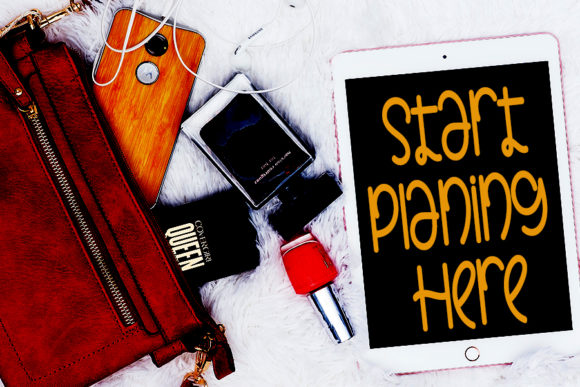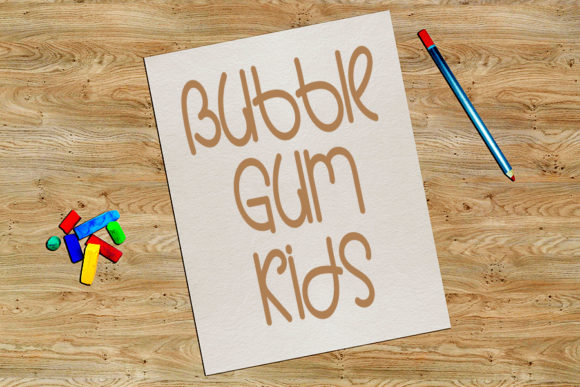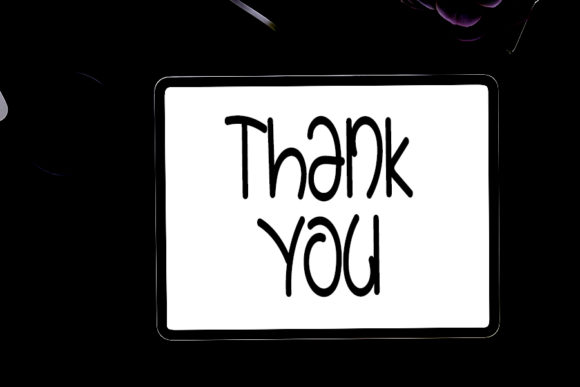
About Crafting Font
Crafting is a cute, quirky and bouncy handwritten font. It is suitable for creating any branding, product packaging, invitation, quote, t-shirt, label, poster, logo that you wish to develop.